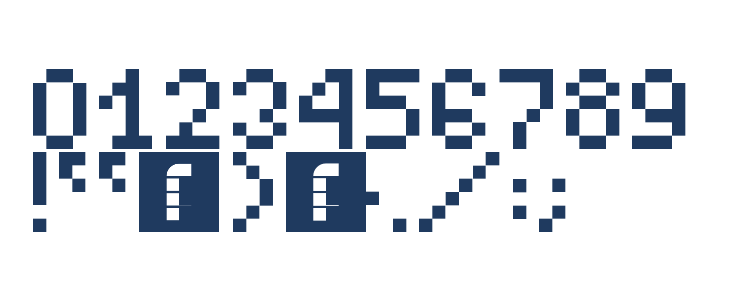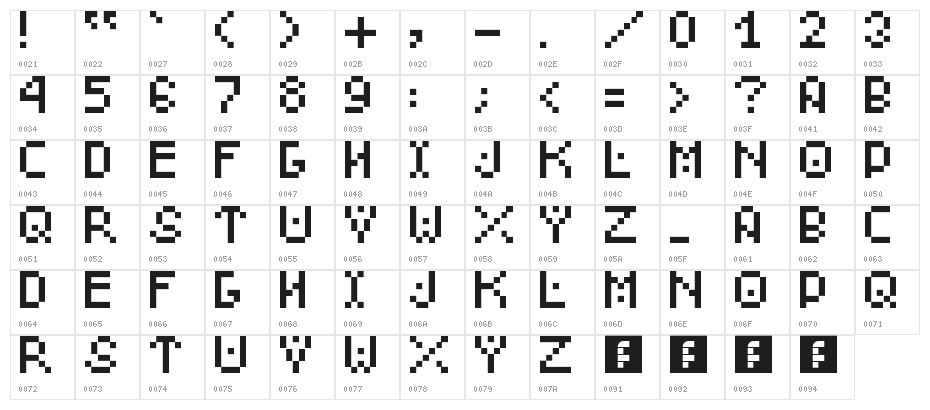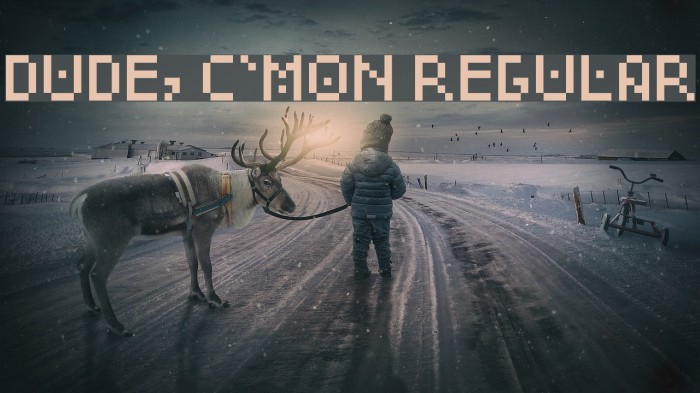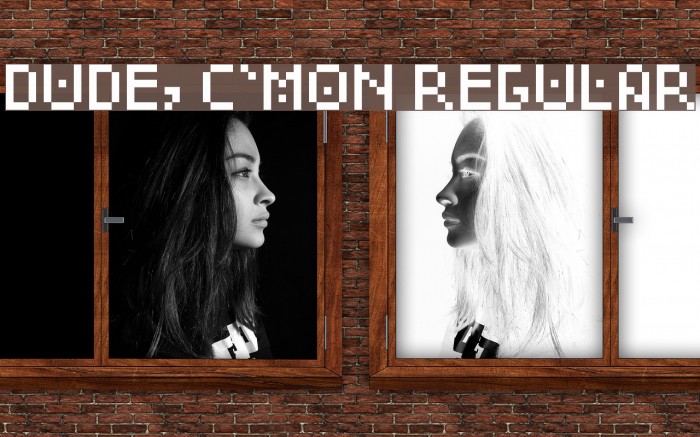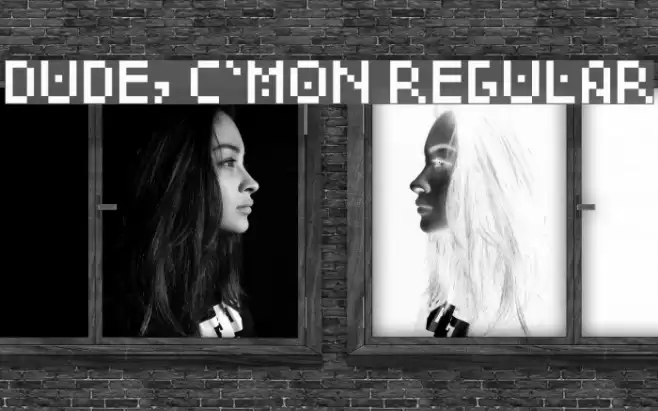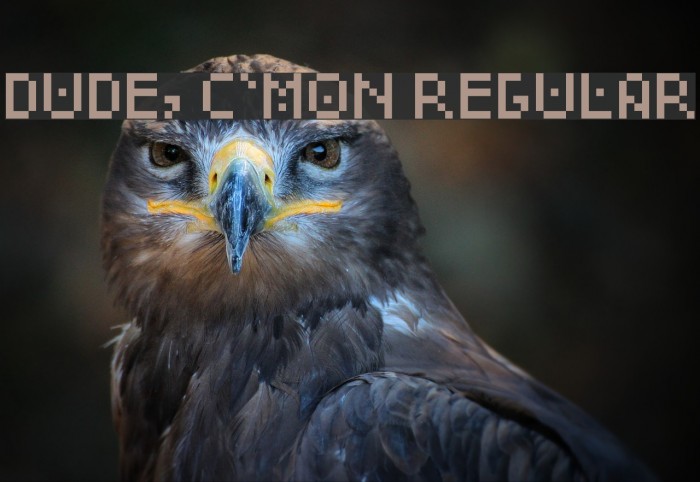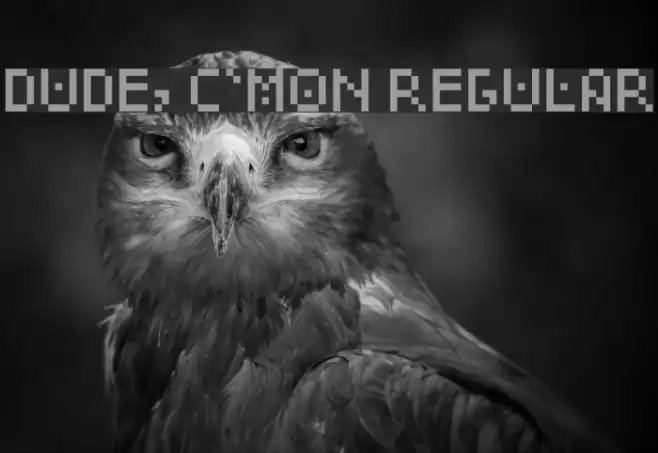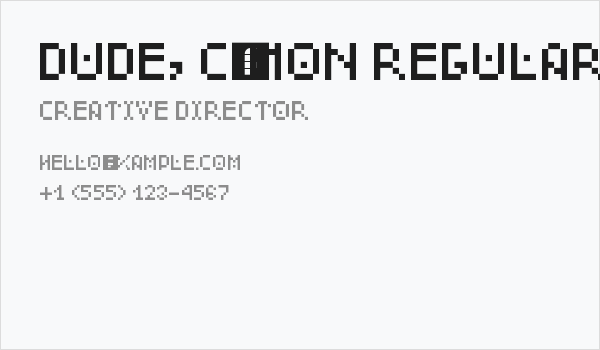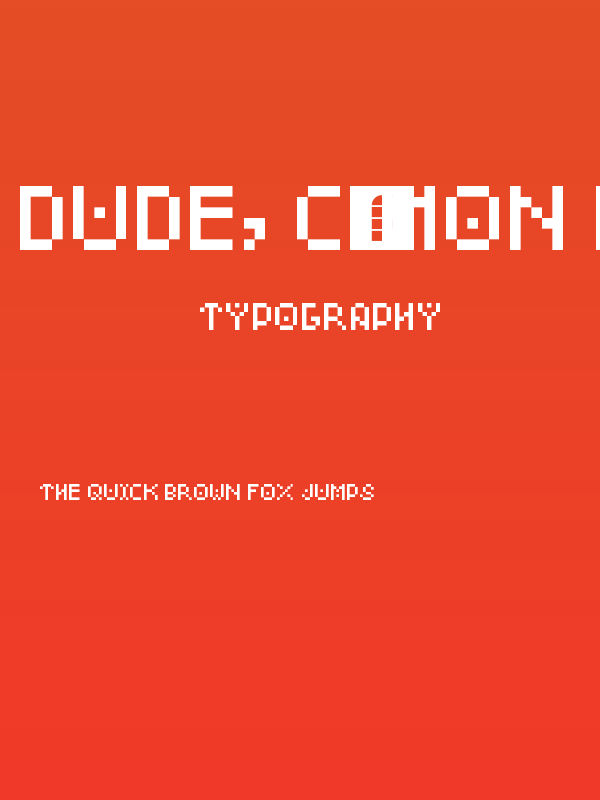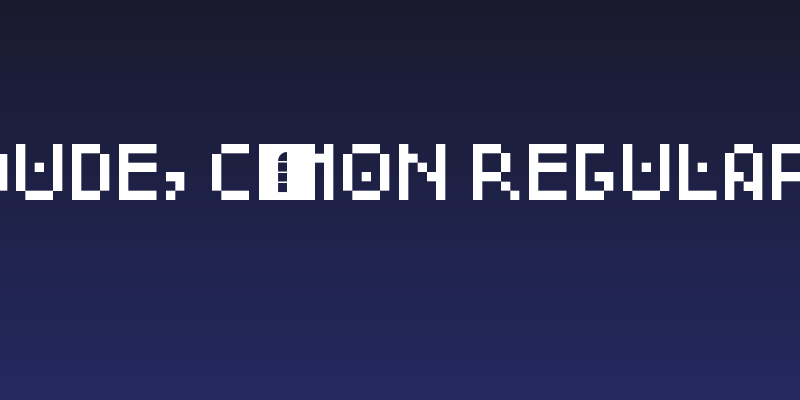
Dude, c'mon Regular Font
Dude, c'mon Regular Description
This font features a pixelated, blocky style reminiscent of early digital displays and retro video games. Each character is constructed with uniform square blocks, giving it a distinctly digital and geometric appearance. The uppercase and lowercase letters maintain a consistent height, contributing to a monospaced feel, although the font is not strictly monospaced. The numerals and special characters follow the same pixelated design, ensuring visual consistency across all glyphs. This font's nostalgic aesthetic is ideal for projects seeking a retro or tech-inspired look.
| Proposed Projects | Ideal for retro video game designs, tech-themed posters, digital art projects, and any creative work that embraces a nostalgic digital aesthetic. |